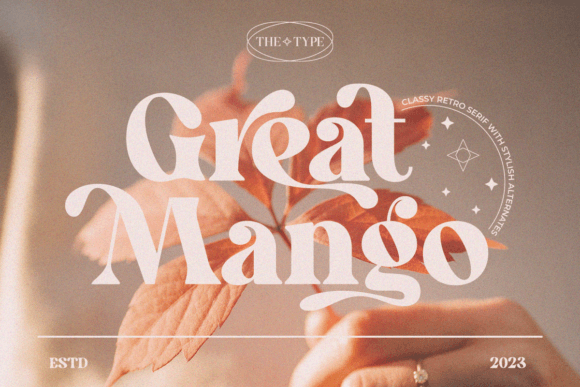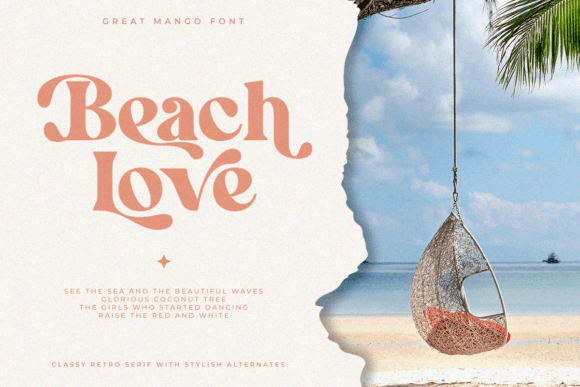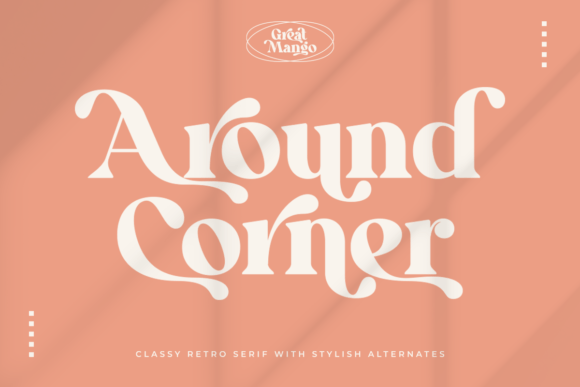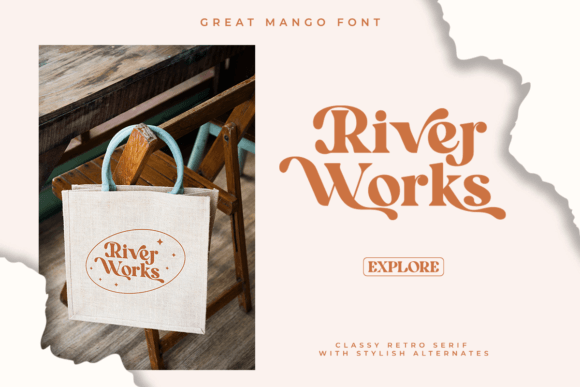
Great Mango Font: Chic Retro Serif for Elegant Branding
About the Great Mango Font
Meet Great Mango Font, a stunning font that brings a touch of elegance and professionalism to any design. Great Mango is a fashionable and modern serif font with clean lines and elegant curves. Its minimalist and chic design creates a sophisticated and trendy look, making it perfect for high-end branding, logos, and editorial designs. The font also features a range of stylistic alternates, ligatures, and multilingual support, making it versatile and adaptable for any project.
Great Mango’s sophisticated elegance shines in headlines, logos, and short-form text within marketing materials or high-end packaging. It’s equally effective for creating impactful signage and short-form editorial pieces. However, its refined curves are less suitable for lengthy body text or user interface elements where readability at smaller sizes is paramount.
Pairing Great Mango effectively depends on the desired effect. For a modern yet classic feel, consider pairing it with a clean sans-serif like Montserrat or Lato. To emphasize its elegance, a delicate script font such as Cormorant Garamond would create a luxurious balance. For a bolder contrast, a geometric sans-serif like Futura would add a contemporary edge.
The overall personality of Great Mango is sophisticated and modern, exuding a quiet confidence and understated luxury. Its stylish curves suggest a brand that values quality, refinement, and attention to detail.
Great Mango Font Usage Examples
Great Mango Font Example